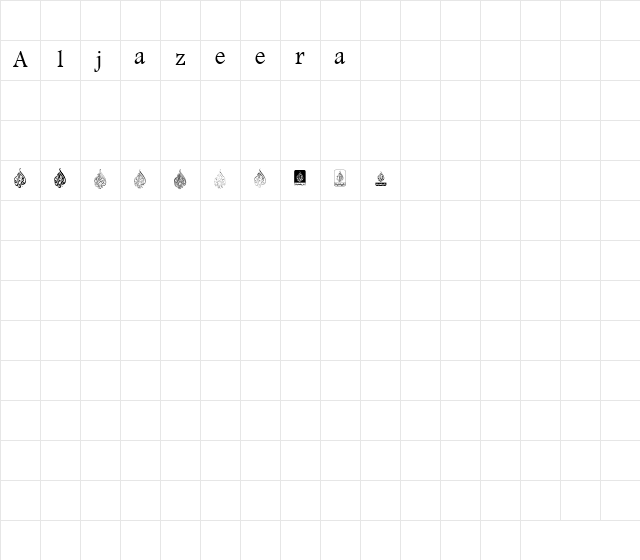
Complete Aljazeera Logos Regular glyph index. Displaying only characters natively supported by Aljazeera Logos Regular font.
Aljazeera Logos is a composed and adaptable typeface that performs quietly and consistently across a wide range of design contexts.